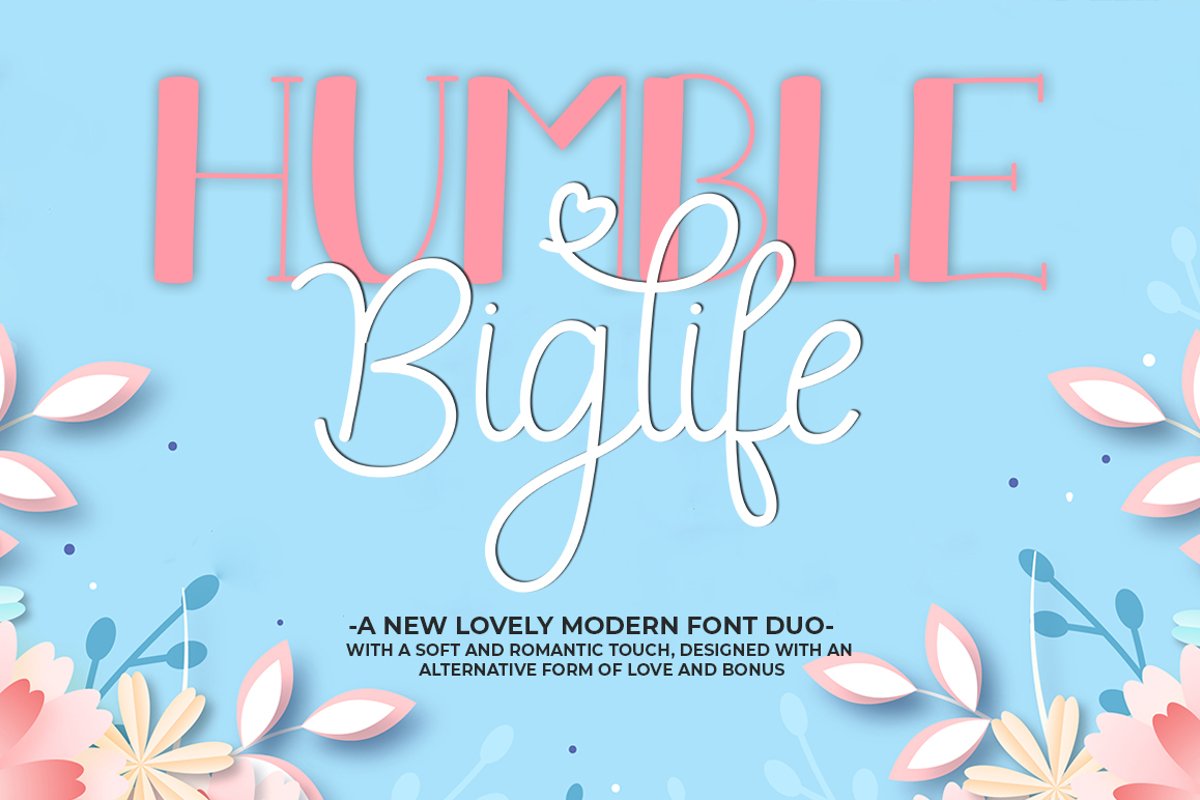
Humble Biglife Duo
Humble Biglife Duo Font" is a romantic brush font duo with contemporary, sophisticated accents. Suitable for use in watercolor designs. Such as Novel tittle, Apparel, Invitations, Quotes, Books tittle, Stationery Design, Branding, Logos, Greeting Card, T-shirt, Packaging design, Poster and more.Humble Biglife Duo Font includes a complete set of uppercase and lowercase letters, as well as multi-language support, numbers, punctuation, ligatures and alternative character,also with additional Humble Biglife Duo Sans.Files included: